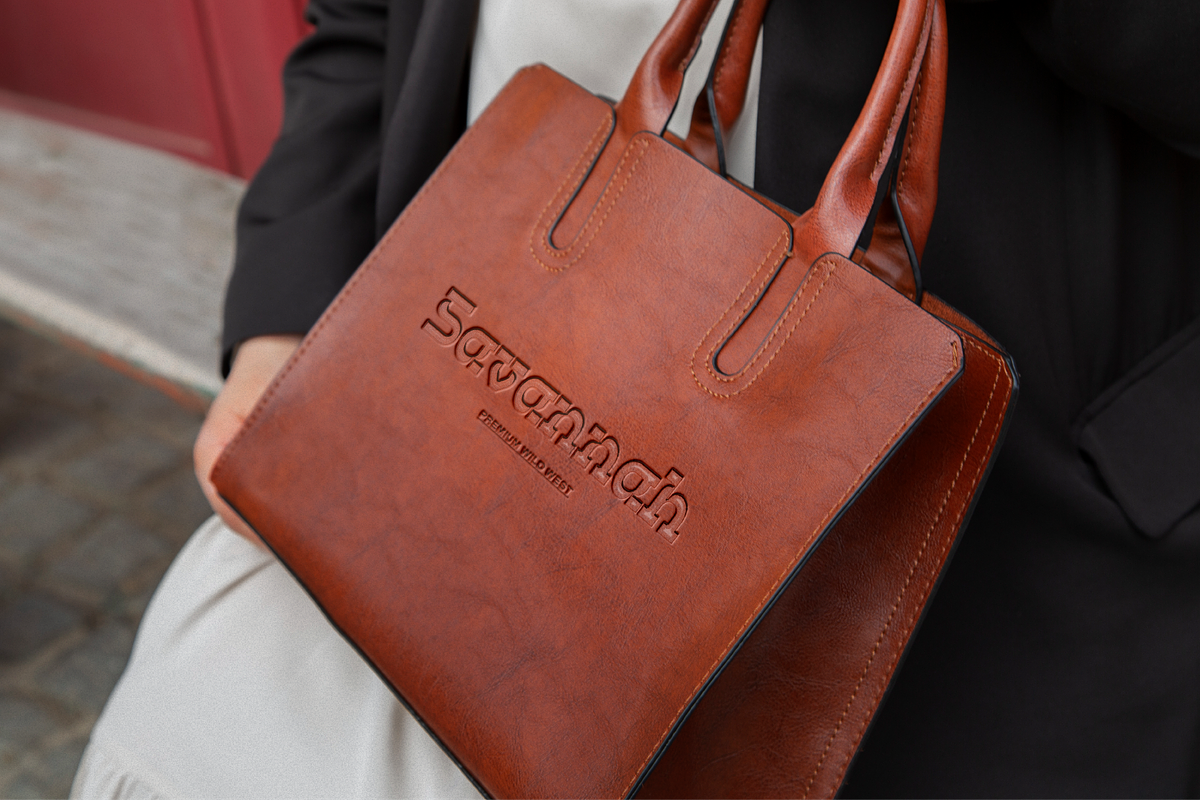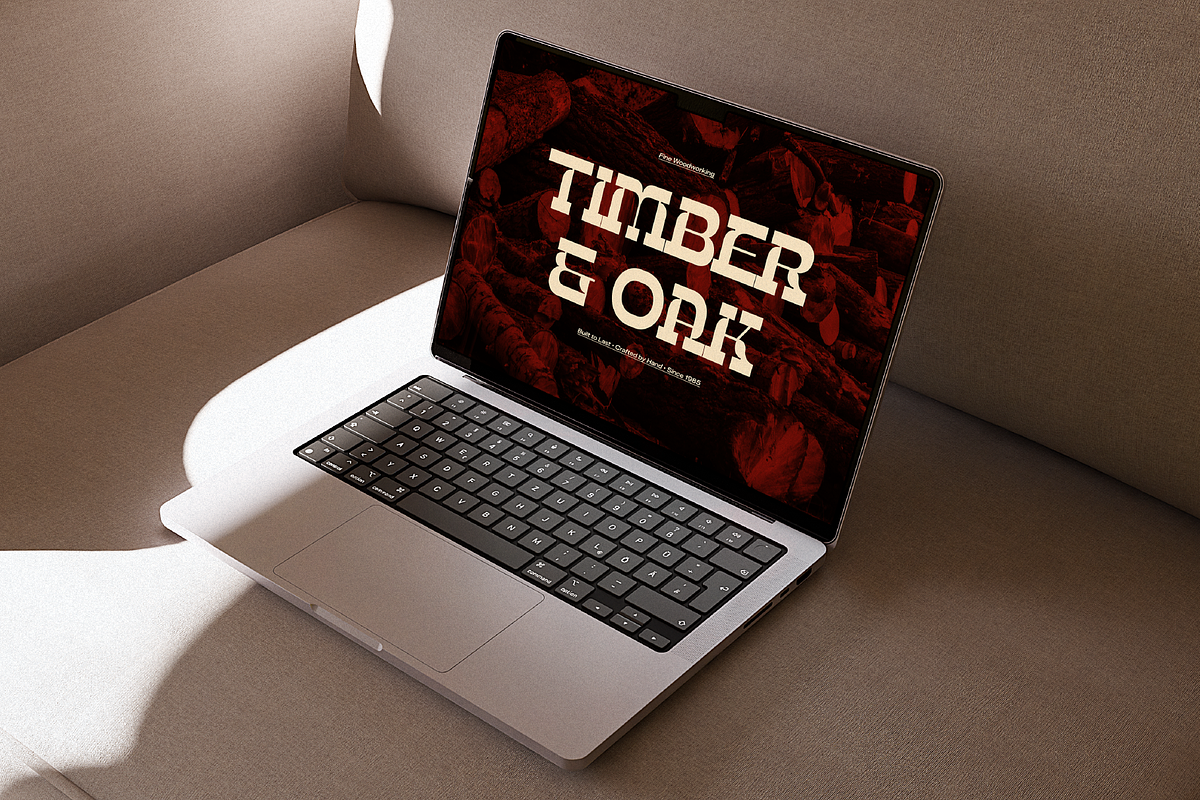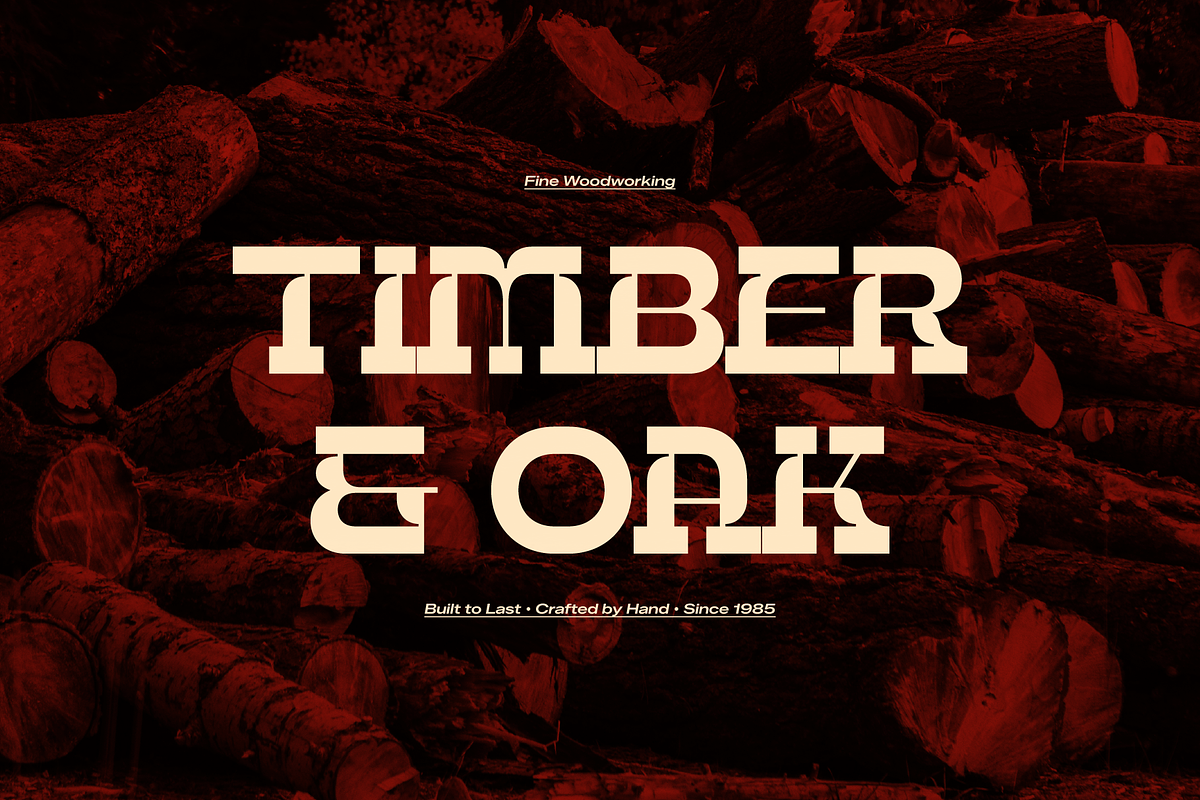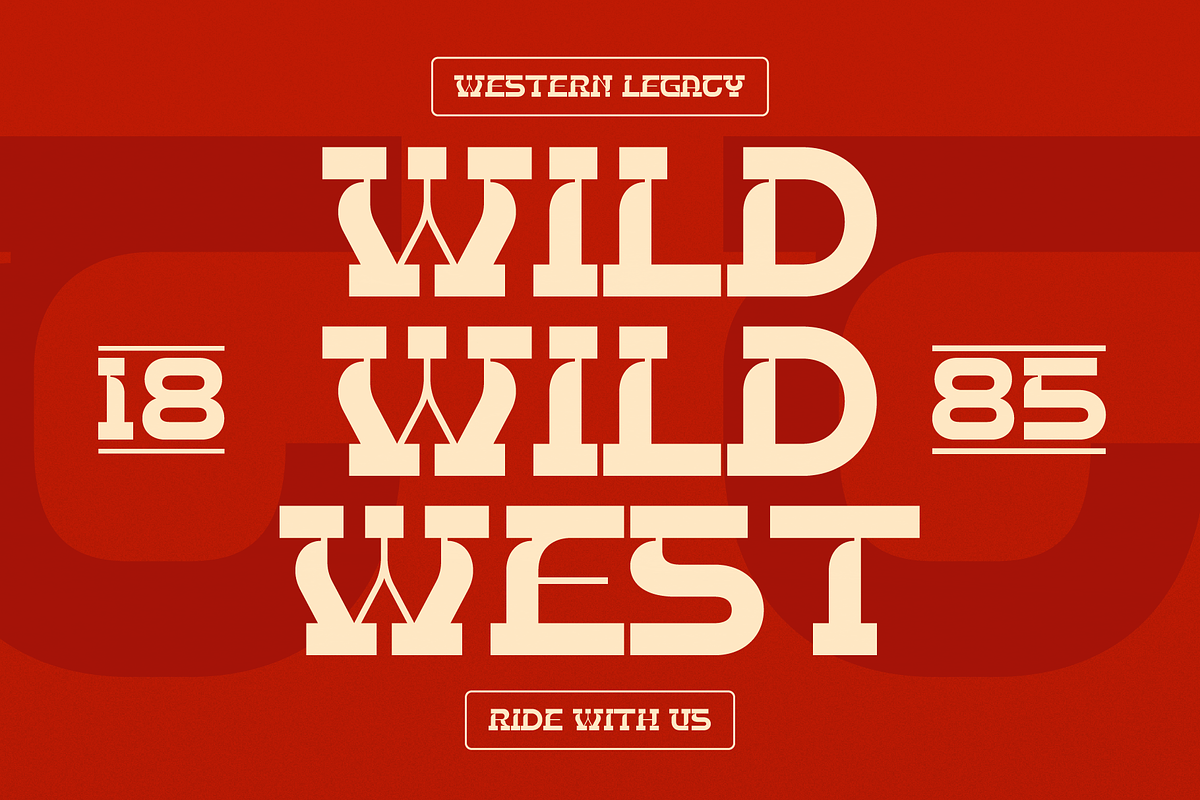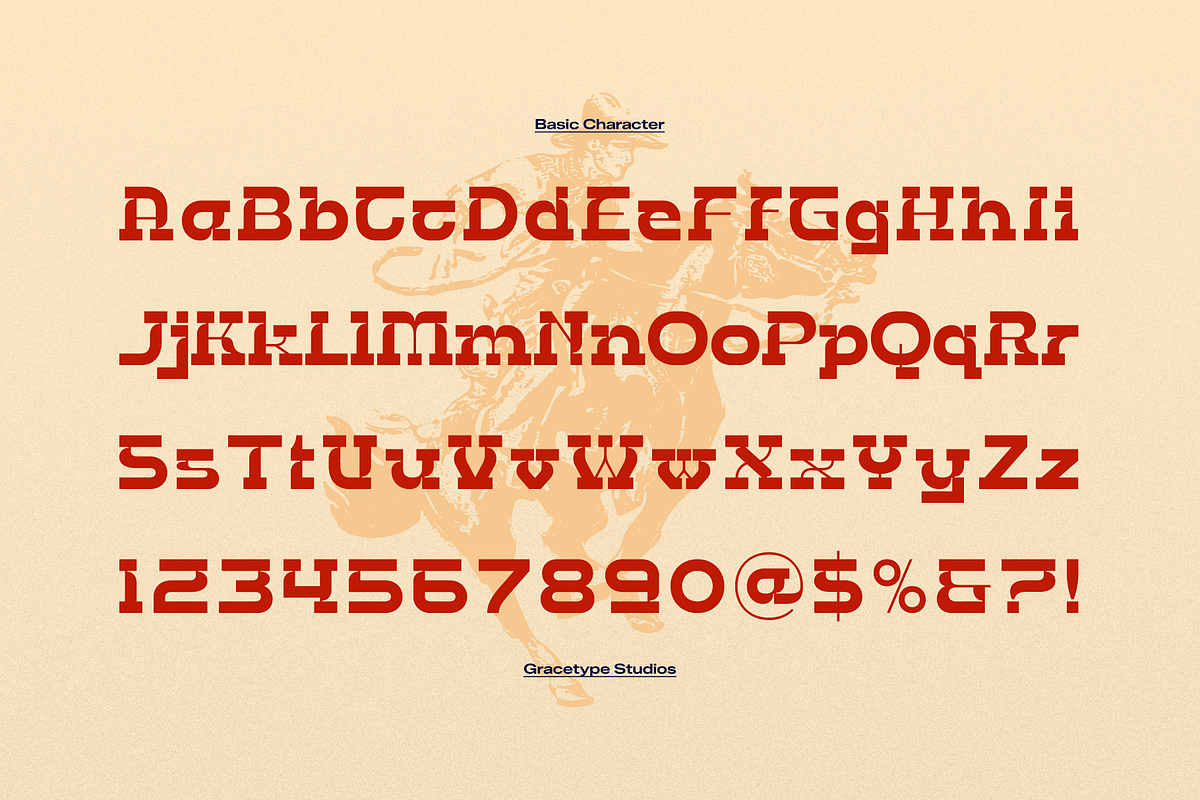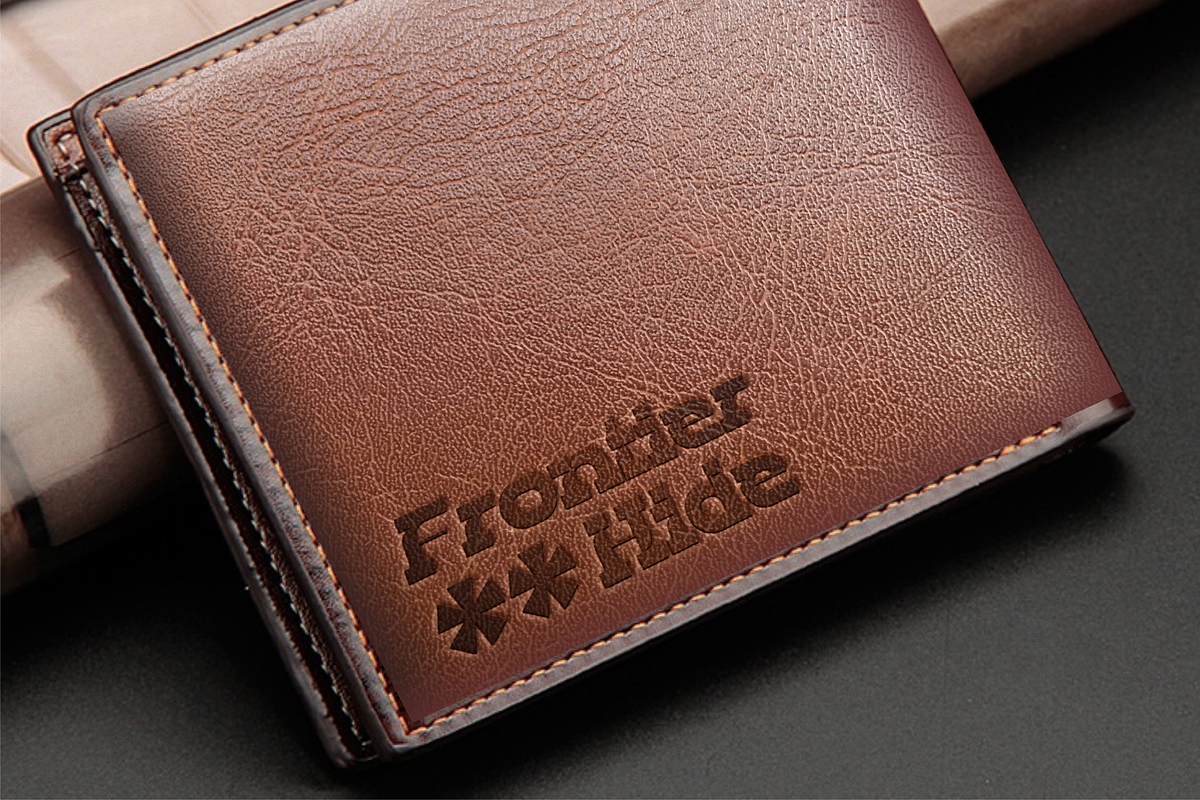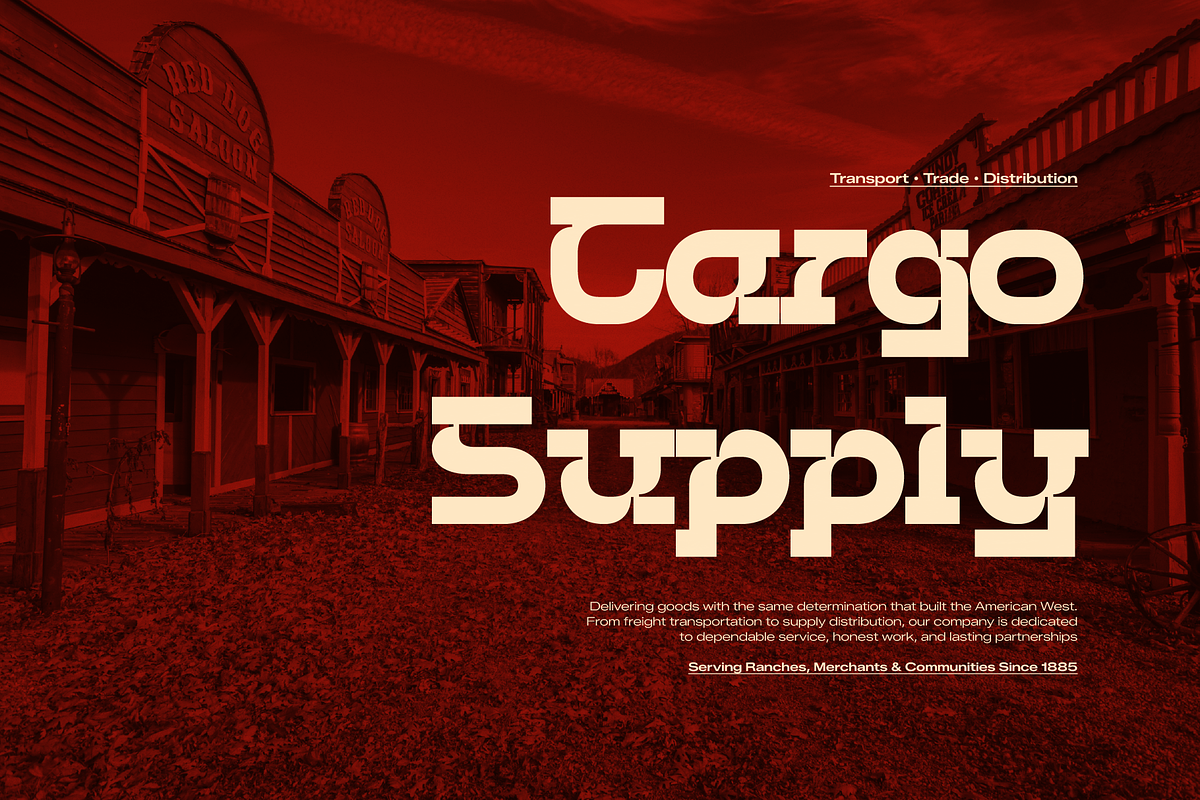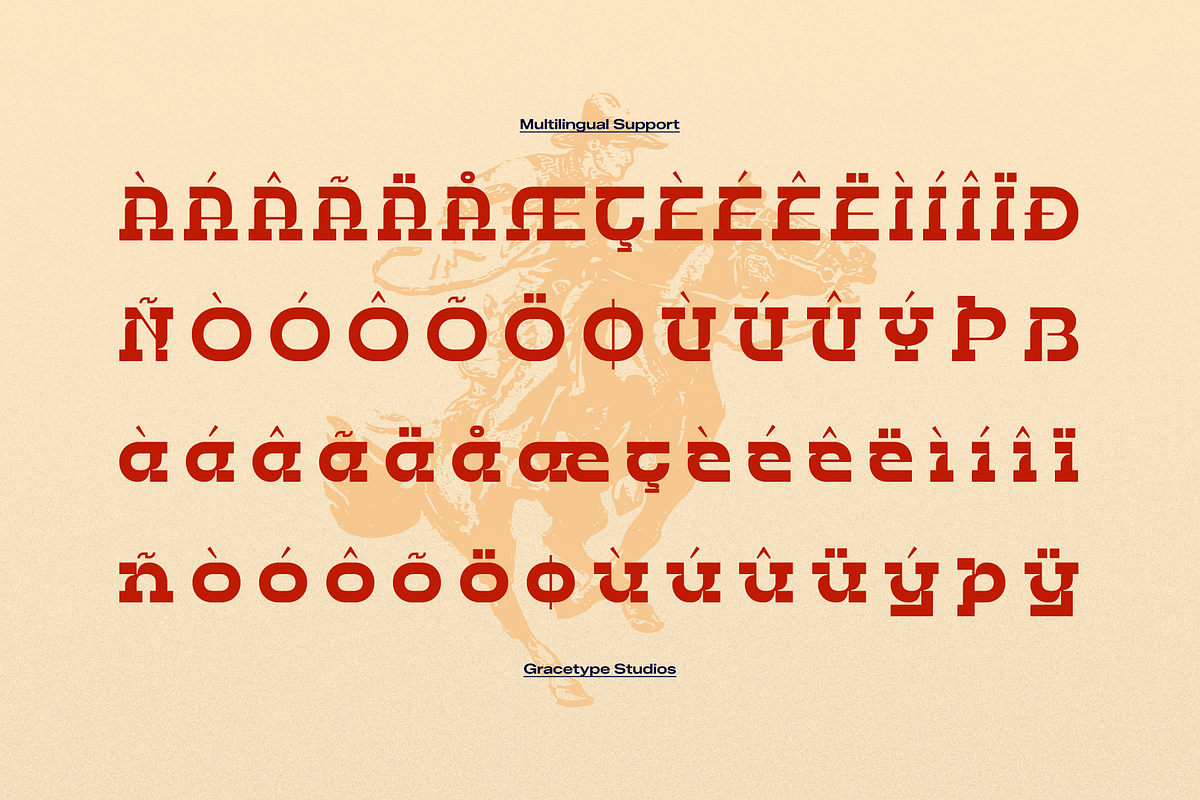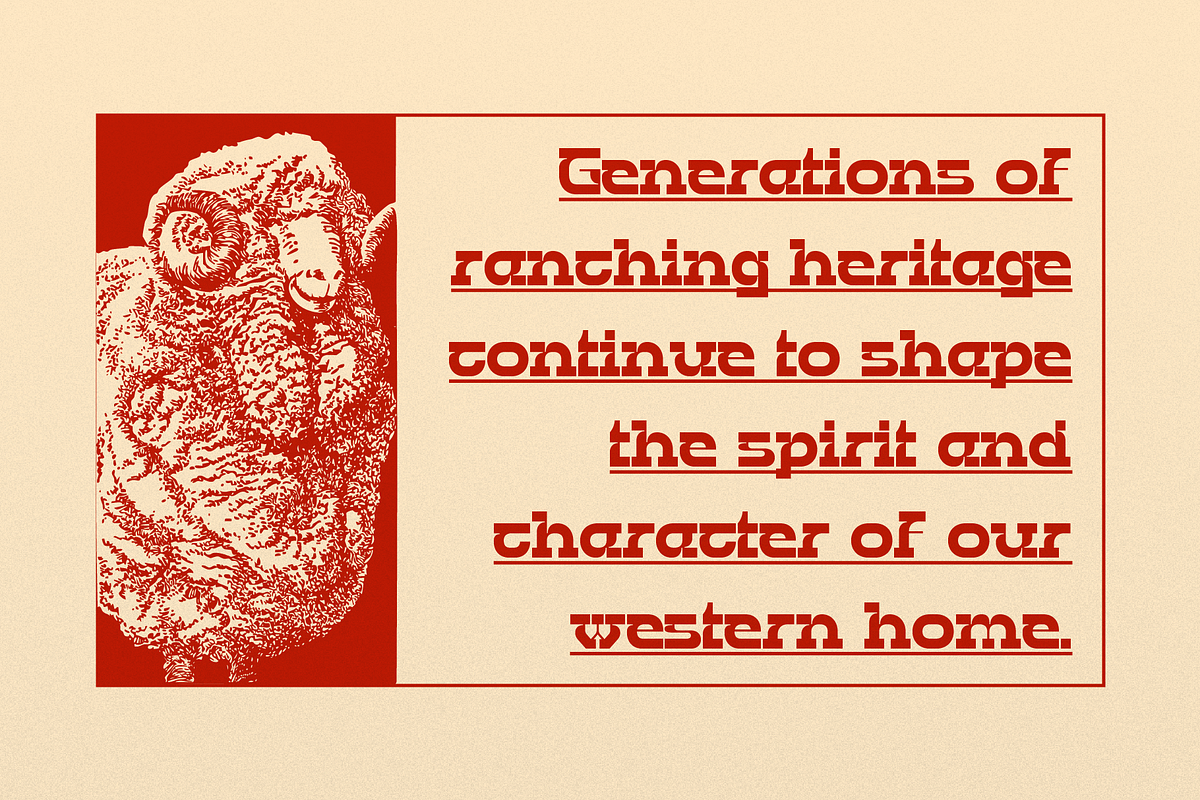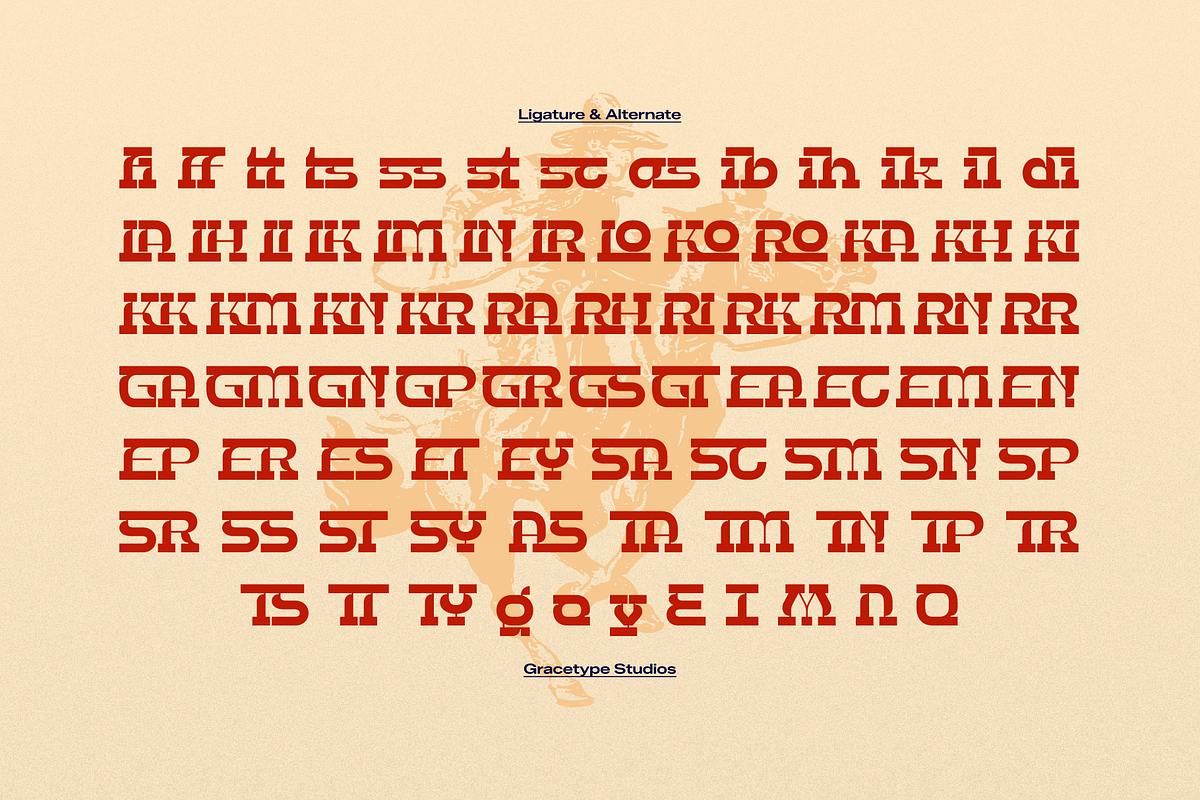
Bebop Rodeo | Western Slab Serif
Bebop Rodeo | Western Slab Serif, from Gracetypestudio, suitable for any projects such as: logos, branding projects, homeware designs, product packaging, mugs, quotes, posters, shopping bags, t-shirts, book covers, name card, invitation cards, greeting cards, label, photography, watermark, special events, and all your other lovely projects that need a Slab Serif taste.
Alternate and Ligature